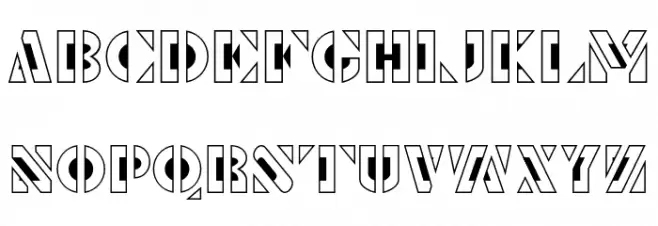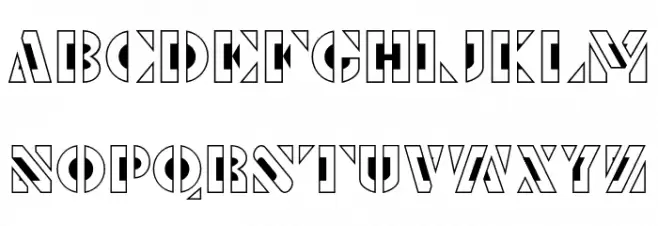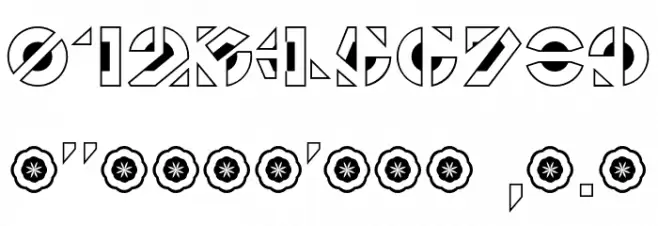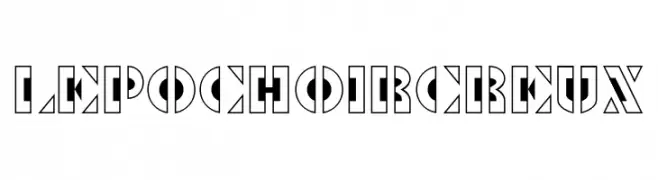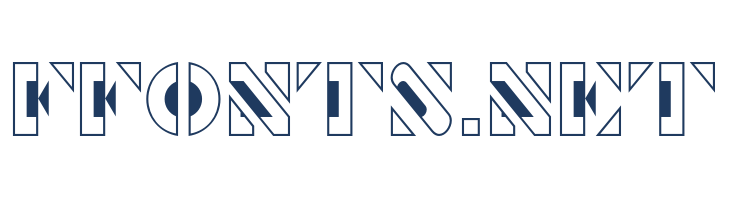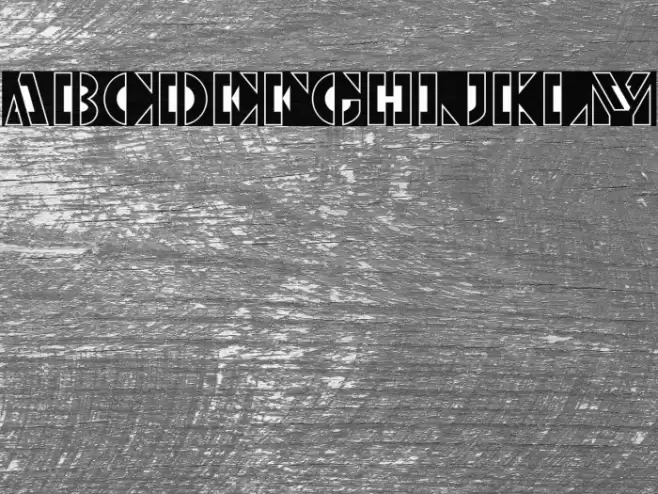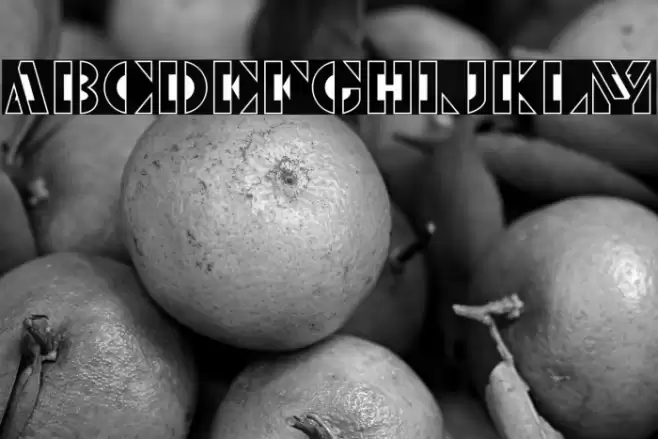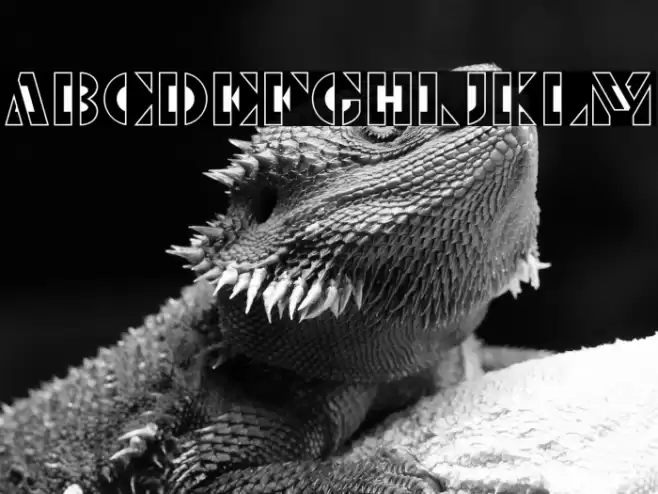
Le Pochoir Creux Font
Le Pochoir Creux is my implementation of how the hollow numerals of Le Pochoir were done as shown on Plate 40 of La Lettre dans la Peinture et la Publicite by Jean Joveneaux, Paris, 1987.